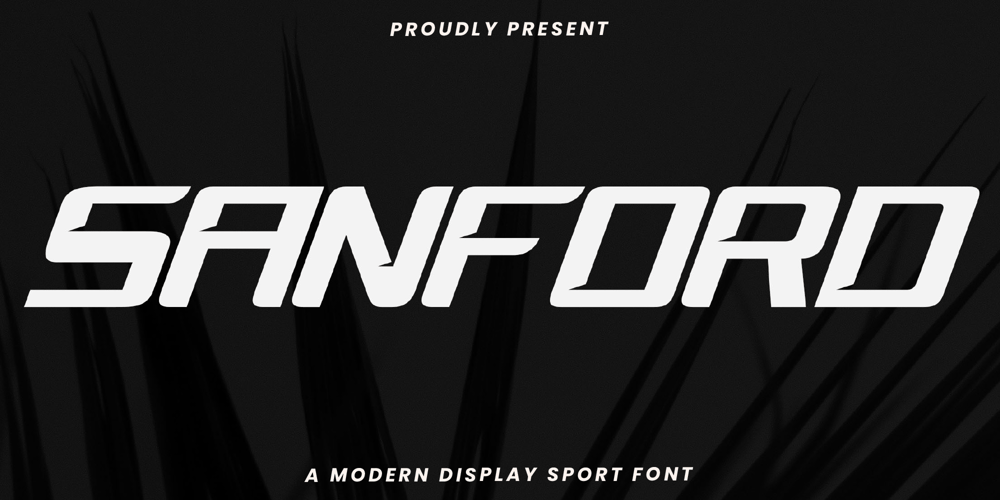
Sanford Font Family was designed by Achmad Yani and published by Flawlessandco. Sanford contains 1 styles and family package options. Introducing “Sanford” – A Modern Display Sport Font. Sanford is the ultimate choice for designers seeking a bold and contemporary display font to make a lasting impact.There’s some connected letters and some alternates that suitable for any graphic designs. This font support for some multilingual. Also contains uppercase A-Z and lowercase a-z, alternate character, numbers 0-9, and some punctuation.If you need help, just write me! Thanks so much for checking out my shop!